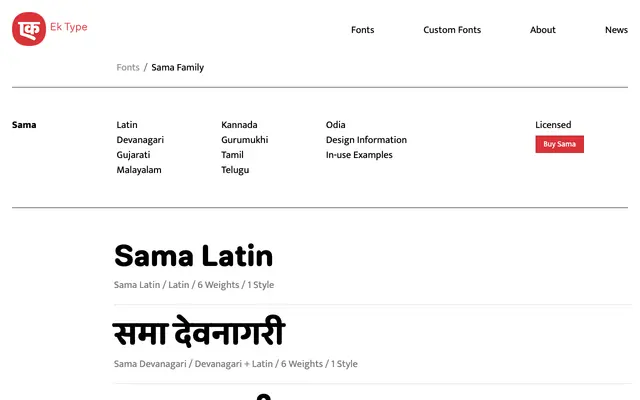
Sama Family
A mono-linear sans with rounded terminals spanning nine Indic scripts alongside Latin, built with genial curves that give lighter weights an airy quality and heavier ones a lively bounce.
Sama covers Latin, Devanagari, Gujarati, Malayalam, Kannada, Gurmukhi, Tamil, Telugu and Odia, each sub-family running across six weights with a consistent mono-linear structure and rounded terminals. Closed counters are offset by subtly billowing curves that prevent the design from feeling rigid, lending lighter settings a sense of weightlessness and heavier weights a youthful energy. The name means natural ambience in Hindi, and the typeface is positioned as an approachable, versatile choice wherever consistent cross-script typography is required.
Sama is described as a mono-linear typeface with rounded terminals, placing it firmly in the geometric sans-serif tradition; its even stroke weight and circular forms define the subcategory.